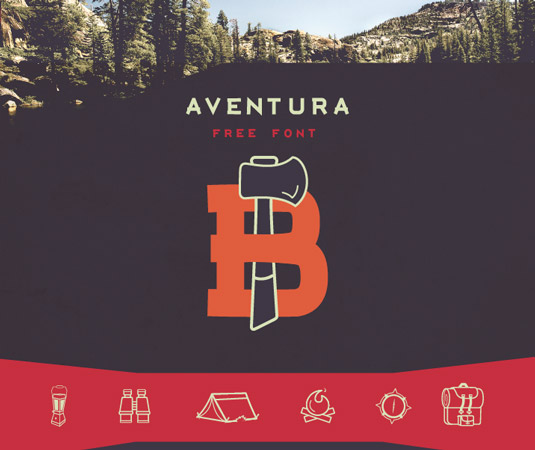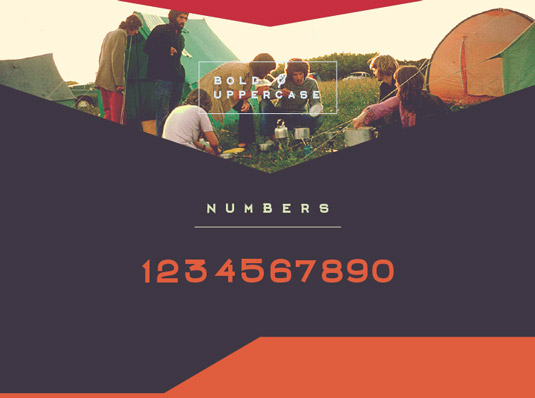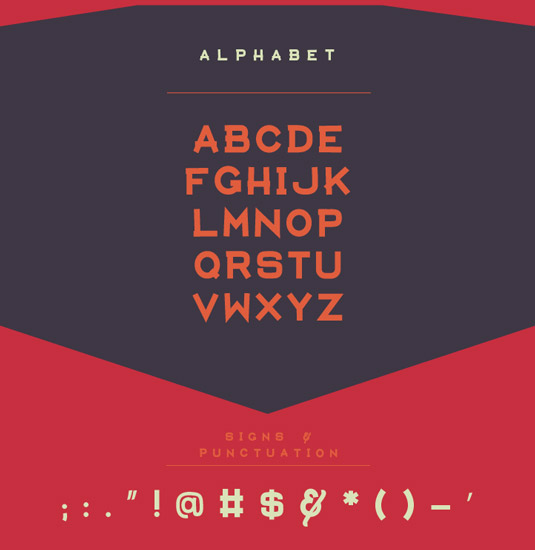
Font of the day: Aventura
Aventura by Jimmy Kalman
Inspired by the outdoors, today's font of choice Aventura was created by graphic designer Jimmy Kalman. With a full set of uppercase letters, numbers and a selection of special characters, Aventura is free for both personal and commercial use.